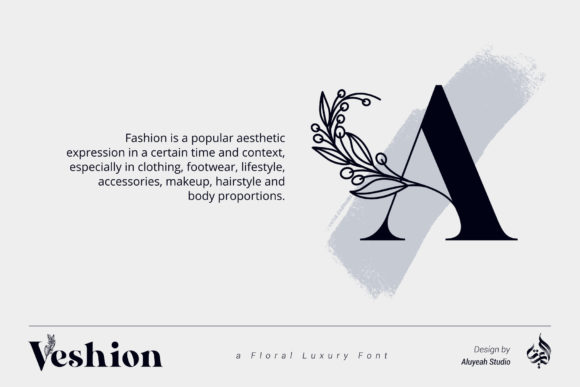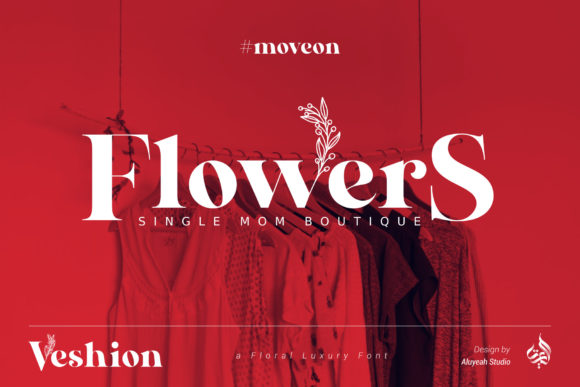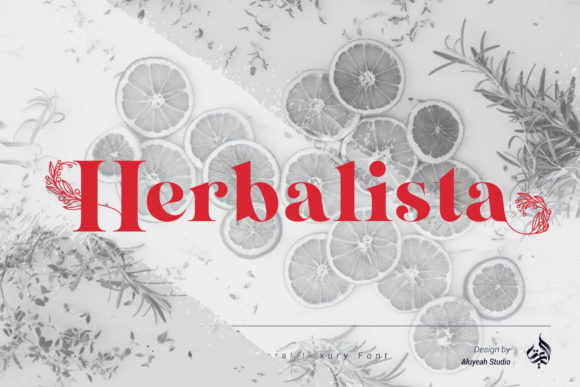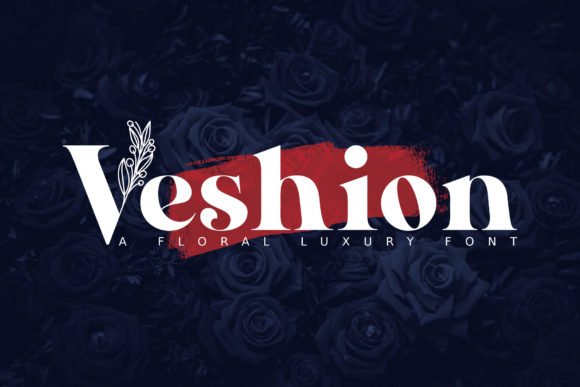
Introduction to AL Veshion Font
Veshion is a floral luxury font that’s extremely fashionable and playful.
Use this font for wedding invitations, branding, packaging, magazines, florist shops, social media, restaurant menus, greeting cards, headers and much more .
Key Features of AL Veshion Font